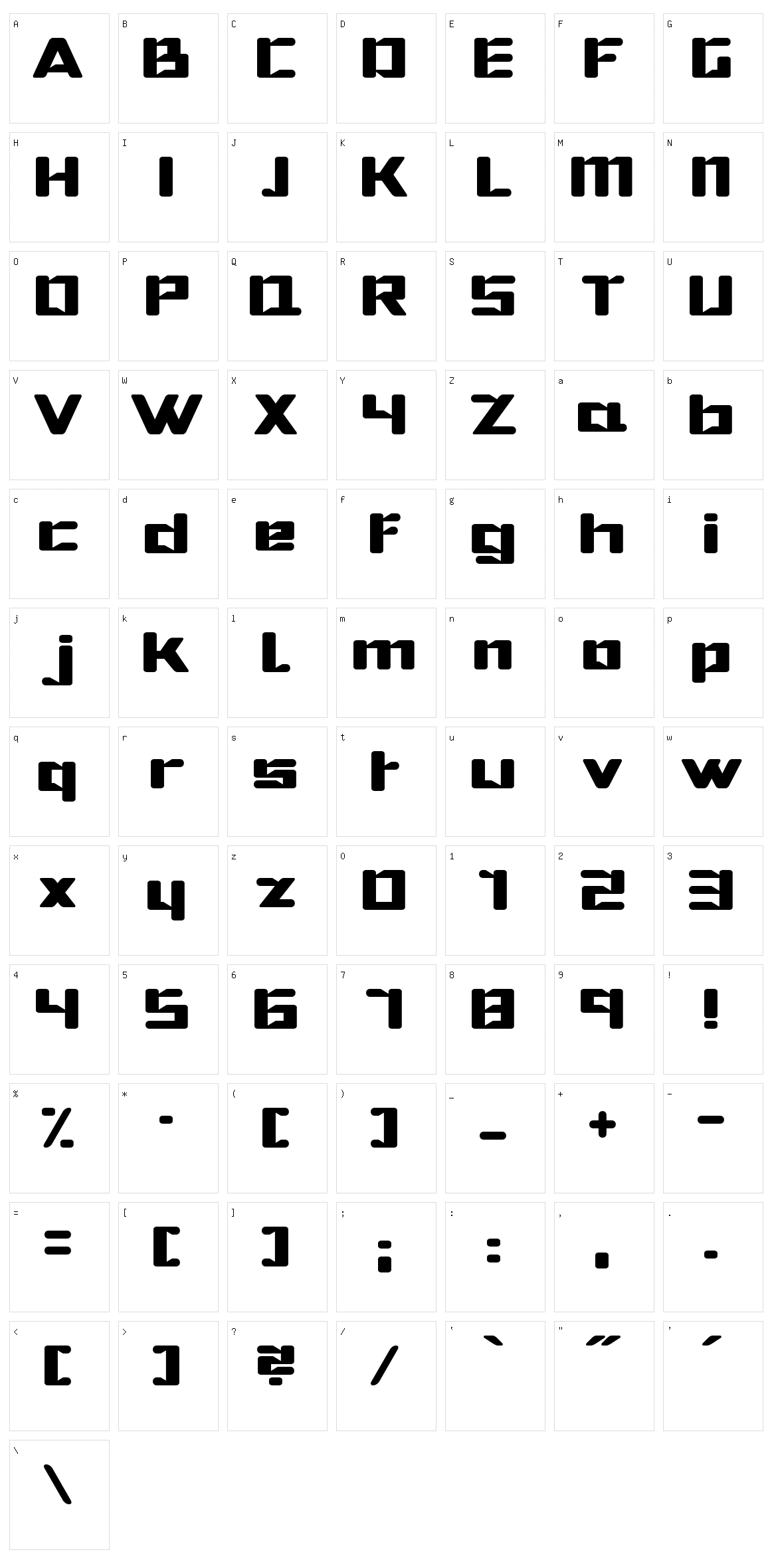
The free font Hibernate is carefully designed by No Images Fonts, showcasing a thoughtful balance of creativity and usability and belongs to the Techno font family. When you download the ZIP file, it contains only 12.3 KB of font files, making it lightweight and quick to download. Please review the license details below to understand permitted usage and distribution rights. If license information is not available, we recommend using this font for personal projects only or contacting the author directly for commercial usage permissions.